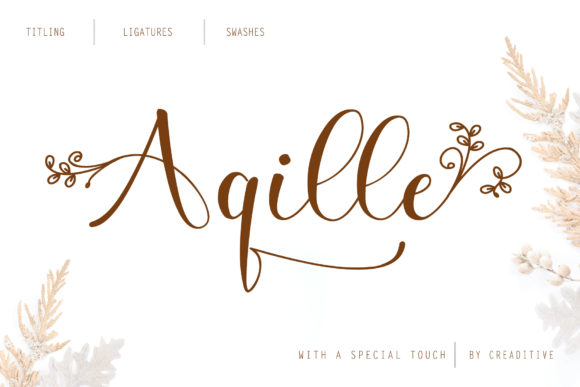
Unleash the power of Aqille Font, an exquisite creation from Creaditive Design. This captivating script font exudes elegance and sophistication, with its contemporary flair and impeccable form. Inspired by timeless classic calligraphy, Aqille effortlessly adds a touch of refinement to your creative endeavors.
Journey into a world of visual enchantment with Aqille Font. Its graceful curves and sweeping flourishes evoke a sense of artistry and evoke a sense of nostalgia. Whether you're a seasoned designer or just starting your creative journey, Aqille Font is the perfect companion for unleashing your imagination.
Make a statement with Aqille Font, the ultimate choice for branding and design. Its versatile nature lends itself seamlessly to logos, invitations, social media graphics, and more. With Aqille Font as your secret weapon, you'll captivate your audience and leave a lasting impression that will elevate your brand to new heights.
Dive into the depths of creativity with Aqille Font and unlock a world of design possibilities. Its PUA encoding grants you effortless access to a treasure trove of glyphs and swashes, empowering you to unleash your creative vision like never before.
Don't settle for ordinary. Embrace the extraordinary with Aqille Font. This remarkable font is more than just a collection of letters; it's an artistic masterpiece that will transform your creative projects into breathtaking works of art.